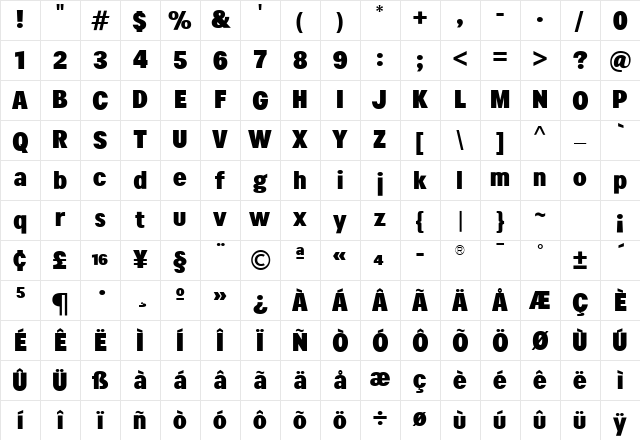
TFAdepta Extrabold
Foundry: TFAdepta - Treacyfaces,Inc
Design Context for TFAdepta
TFAdepta is a composed and adaptable typeface that performs quietly and consistently across a wide range of design contexts. Its bold stroke weight gives it real presence on the page.